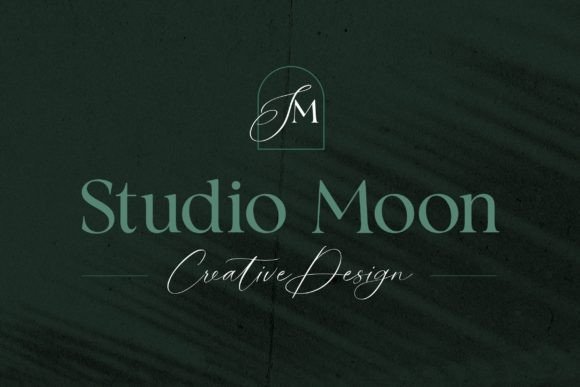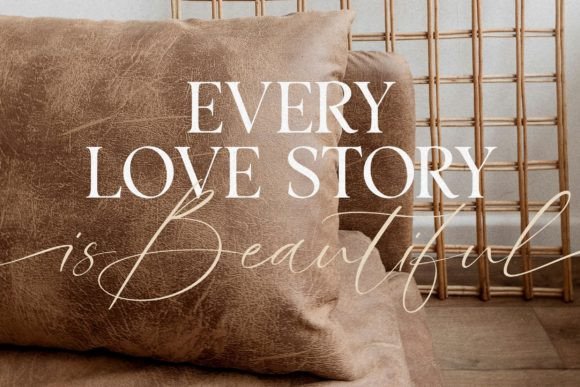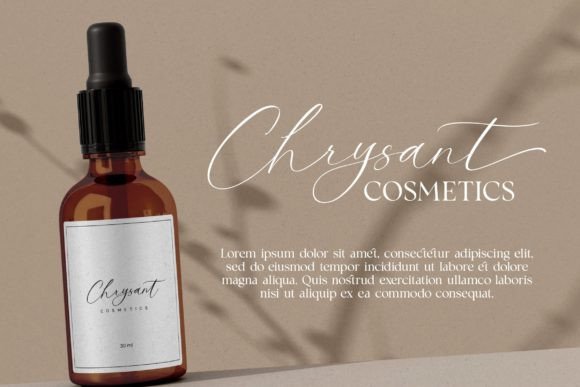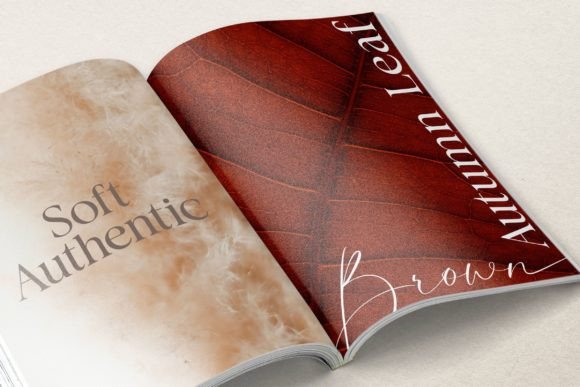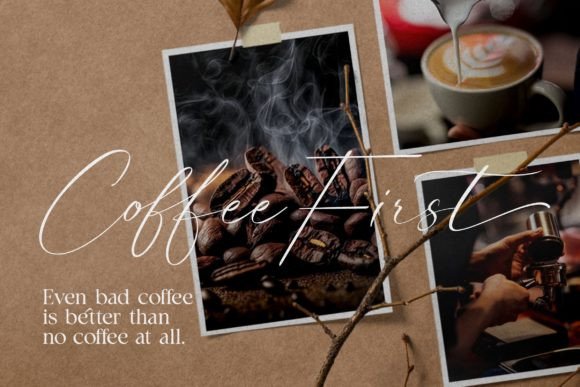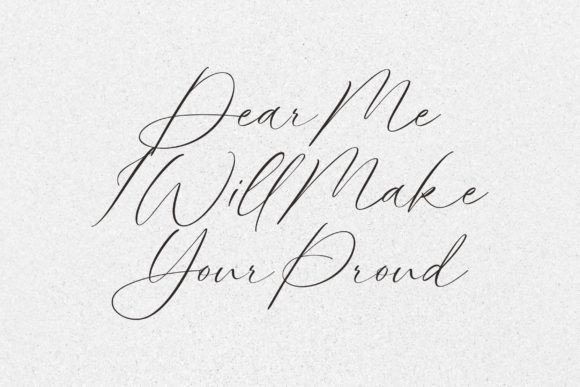
Introduction to Calm Lovely Font
Calm Lovely is Modern Duo, these fonts are of two types serif and script.
Display Serif inspired by famous logo and stylish, This typeface has been made carefully to make sure its premium quality and luxury feel Calm Lovely is perfect for headlines, weddings, social media, logos, posters, packaging, T-shirts, coffee shops, restaurants, magazine headers, signs or gift/postcards, cafes and weddings, or any type of advertising purpose.